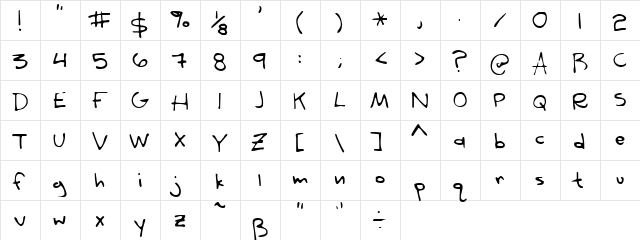
Frederick Hand
| Style | Hand |
| Foundry | Font Garden |
| Designer | Ellinor Rapp |
Design Context for Frederick Typeface
Frederick flows with the natural rhythm of handwritten lettering, making it ideal for designs that call for warmth and personal expression.
Font Pairing: Combine Frederick with a simple geometric sans for maximum contrast — the tension between flowing curves and clean structure is a classic typographic pairing.
Pro Tip: Use Frederick for short runs of text — names, titles, or taglines. Extended body copy in script faces tires the eye quickly.